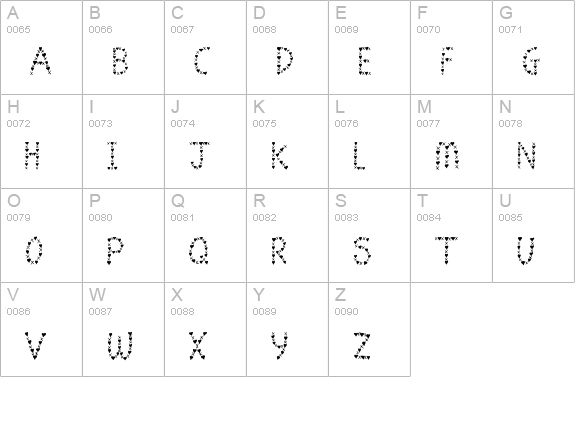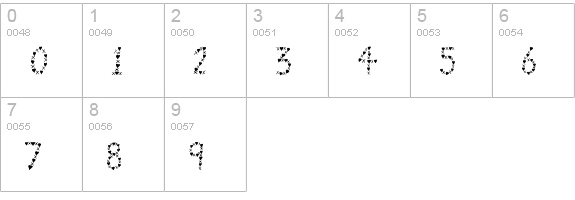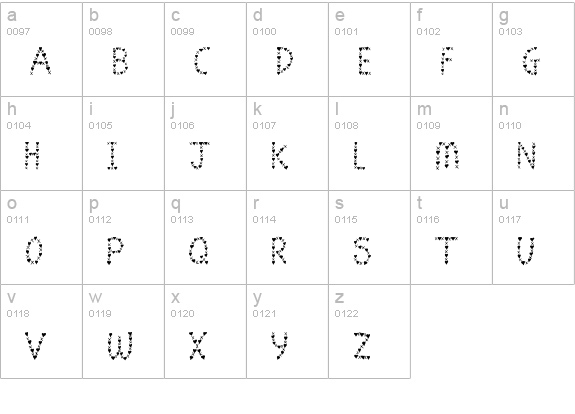
Introducing the irresistibly charming Ya wanna be my lover? font – a delightful fusion of playfulness and sophistication that is sure to add a touch of whimsy to all your creative projects. This font exudes a sense of warmth and friendliness, inviting you to embrace its unique personality and make it your own. With its quirky yet elegant letterforms, Ya wanna be my lover? font effortlessly captures the essence of fun and joy. Each character is carefully crafted with a balance of curvaceous lines and carefully placed accents, resulting in a harmonious blend of modernity and classic charm. Whether you're designing greeting cards, invitations, or branding materials, this font will infuse your work with a sense of joy and lightheartedness. One of the most enticing features of Ya wanna be my lover? font is that it is freely available to download at FontsMarket.com. Yes, you read that right – it's absolutely free! Say goodbye to the days of searching for the perfect font and spending a fortune on commercial licenses. Now, you can effortlessly access this delightful typeface and bring your creative visions to life without any constraints. The versatility of Ya wanna be my lover? font knows no bounds. Its wide range of ligatures, alternate characters, and stylistic sets allows you to experiment endlessly, giving your designs a fresh and unique look every time. Whether you're aiming for a vintage-inspired aesthetic or a contemporary feel, this font has got you covered. So, why wait? Dive into the world of Ya wanna be my lover? font and let your creativity soar. Download this enchanting typeface today from FontsMarket.com and unlock a universe of design possibilities. Let your imagination run wild and infuse your projects with the playful spirit of Ya wanna be my lover? font. After all, who can resist the allure of a font that is both freely available and endlessly captivating?